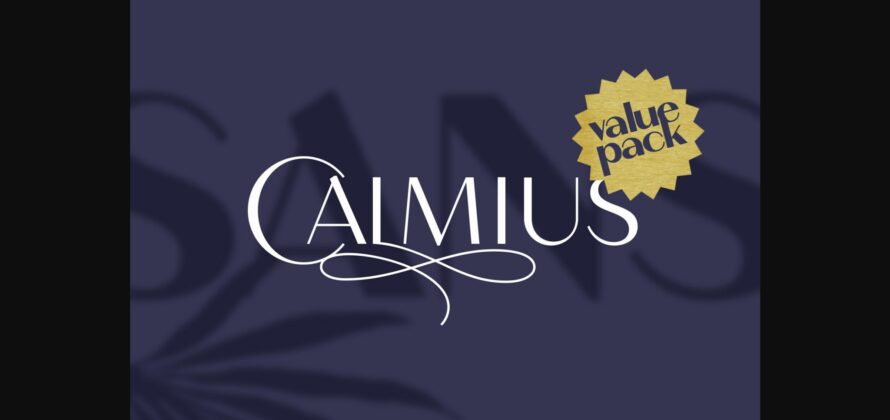
About Calmius Font
Calmius is a captivating blend of elegance and modernity, a sans-serif font that effortlessly marries contemporary sophistication with timeless charm. Drawing inspiration from the world of fashion typography, Calmius exudes an air of refinement and style that is both modern and vintage in its aesthetic.
Ideal for a wide range of creative projects, Calmius lends a touch of class to wedding invitation cards, elevating them to luxurious keepsakes that reflect the elegance of the occasion. Its sleek lines and graceful curves make it the perfect choice for beauty and fashion package designs, adding a sense of sophistication to every product presentation.
In the realm of editorial design, Calmius shines as a versatile typographic tool, lending its elegant silhouette to books, magazines, and other printed materials. Whether used for headlines, body text, or pull quotes, Calmius enhances the visual impact of the layout, creating a sense of harmony and balance that captivates readers.
Packaging design becomes an art form with Calmius as your font of choice. Its clean lines and refined proportions add a touch of luxury to product packaging, enhancing brand identity and elevating the overall consumer experience. From cosmetics to gourmet foods, Calmius lends a sense of sophistication to every package design.
For branding projects, Calmius offers endless possibilities. Its modern yet timeless aesthetic makes it the perfect canvas for creating memorable logos, wordmarks, and brand identities that stand the test of time. Whether for a boutique fashion label or a high-end lifestyle brand, Calmius captures the essence of luxury and refinement.
In summary, Calmius is more than just a font; it’s a symbol of elegance and sophistication. From wedding invitations to packaging design, editorial layouts to branding projects, Calmius adds a touch of class to every creative endeavor. Embrace the modern-vintage aesthetic of Calmius and elevate your designs to new heights of style and sophistication.